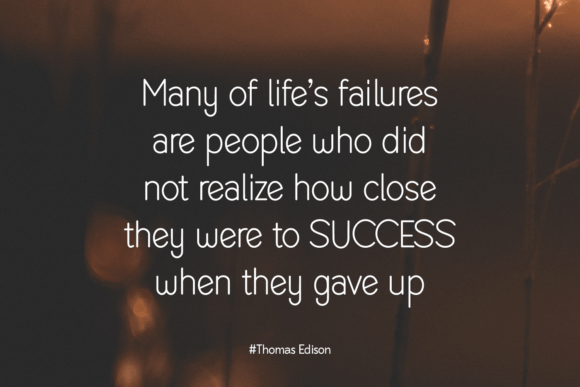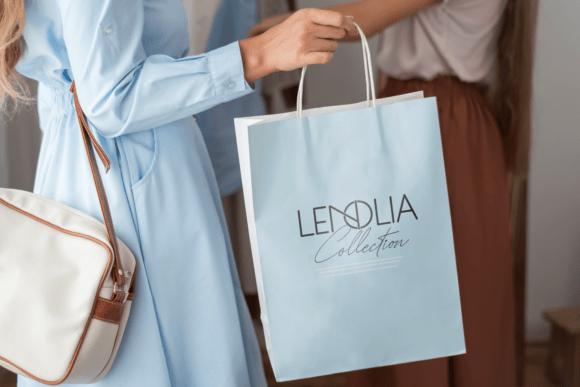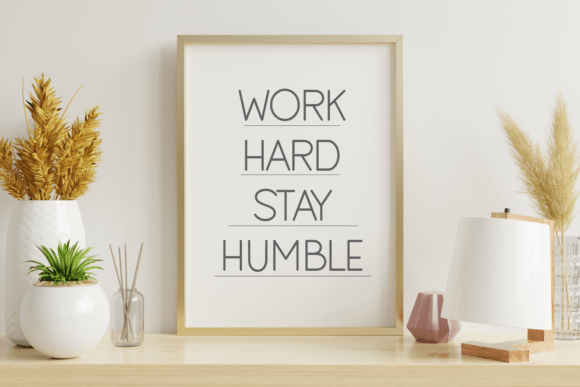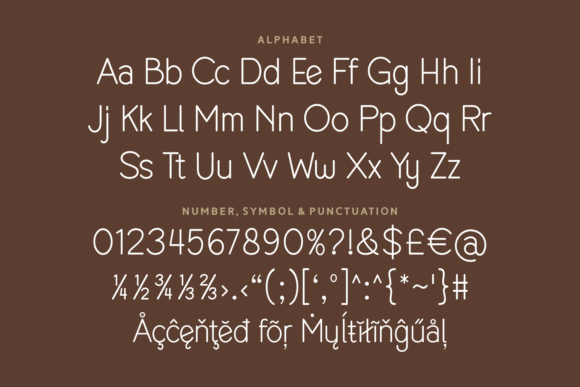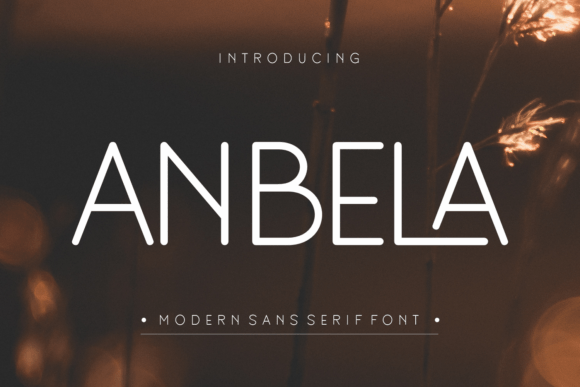
Introducing Anbela Font: The Epitome of Modern Elegance
In the realm of typography, few fonts manage to strike a balance between elegance, clarity, and modernity as effectively as Anbela Font. This sleek and minimalist modern sans serif font has been turning heads in the design community, and for good reason. Anbela’s clean lines, rounded corners, and sophisticated edge make it an ideal choice for a wide range of applications, from high-end branding and packaging to fashion lookbooks and lifestyle content.
The Anatomy of Anbela Font
At first glance, Anbela’s simplicity is its most striking feature. The font boasts a streamlined aesthetic, free from unnecessary embellishments, allowing its elegant lines to take center stage. The rounded corners add a touch of softness, preventing the font from feeling too harsh or industrial. This blend of sharp and rounded elements results in a typeface that feels both contemporary and approachable.
One of the key strengths of Anbela Font is its versatility. Whether you’re designing for web or print, this font adapts seamlessly to various mediums. For digital platforms, Anbela’s clarity and legibility shine, making it perfect for website headers, blog posts, and social media content. In print, it elevates any project, from luxury product packaging to high-fashion editorials, with its refined and polished appearance.
Applications of Anbela Font
- Branding: Establish your brand’s identity with a sophisticated and modern edge. Anbela’s unique blend of sleekness and elegance makes it an excellent choice for logos, business cards, and corporate materials.
- Packaging: Elevate your product’s presentation with Anbela’s luxurious feel. Its high-end aesthetic is perfect for cosmetics, fashion accessories, and premium goods.
- Fashion Lookbooks: Showcase your fashion designs with a typeface that exudes style and sophistication. Anbela’s clean and modern look complements fashion photography beautifully, making it ideal for lookbooks and editorial spreads.
- Lifestyle Content: Whether you’re creating content for a lifestyle blog, magazine, or social media, Anbela brings a touch of elegance and modernity to your text, engaging your audience with its refined appearance.
Why Choose Anbela Font?
Choosing Anbela Font for your design project comes with several advantages:
- Legibility: Anbela’s design prioritizes clarity, ensuring your message is conveyed clearly across various platforms.
- Elegance: Its sophisticated appearance adds a touch of luxury to any project.
- Versatility: Suitable for both digital and print applications, Anbela adapts to your project’s needs.
- Uniqueness: Stand out from the crowd with a font that brings a fresh, contemporary aesthetic to your designs.
Anbela Font is more than just a typeface; it’s a design statement. Its sleek lines, elegant curves, and modern sans serif style make it a versatile tool for designers and crafters looking to add a touch of sophistication to their work. Whether you’re aiming to create a stunning brand identity, luxurious packaging, or captivating lifestyle content, Anbela is up to the task. Embrace the elegance and clarity of Anbela Font in your next project and experience the difference it can make.
With Anbela Font, the possibilities are endless. Dive into its sleek and elegant world, and let it elevate your designs to new heights of sophistication and style.